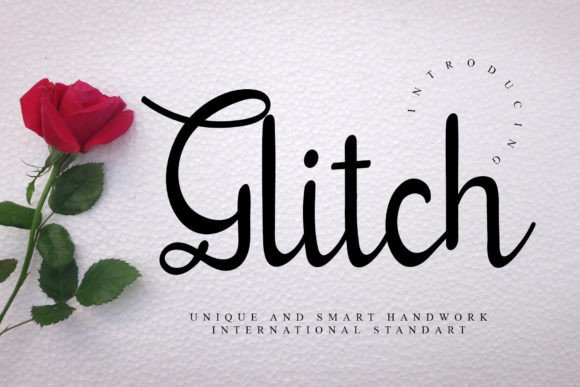
Unleash the magic of Glitch, a script font that dances off the page with its whimsical charm and dynamic energy. Inspired by the beauty of handwritten notes, Glitch brings a touch of authenticity and artistry to your digital creations. Say goodbye to boring, generic fonts and embrace the power of Glitch to make your designs stand out from the crowd.
With its flowing curves and playful imperfections, Glitch captures the essence of creativity and imagination. It's a font that tells a story, evoking a sense of nostalgia and enchantment. Whether you're designing wedding invitations, greeting cards, billboards, logos, business cards, or any design that calls for a personal touch, Glitch is the perfect choice.
Step into a world where fonts come alive and take you on a visual journey. Glitch is a font that captivates and invites you to explore the realms of artistry and expression. Its unique style adds a layer of depth and intrigue to your designs, making them irresistible to the eye.
With Glitch, you have the power to transform ordinary words into captivating masterpieces. Its versatility allows you to create designs that speak to your audience on an emotional level. Whether you're aiming for a vintage aesthetic, a modern flair, or something in between, Glitch effortlessly adapts to your vision.
Don't settle for ordinary fonts that blend into the background. Choose Glitch and witness the transformation of your designs into works of art. Let your creativity soar and embrace the power of handwritten beauty. The possibilities are endless with Glitch, the font that turns the mundane into the magnificent.